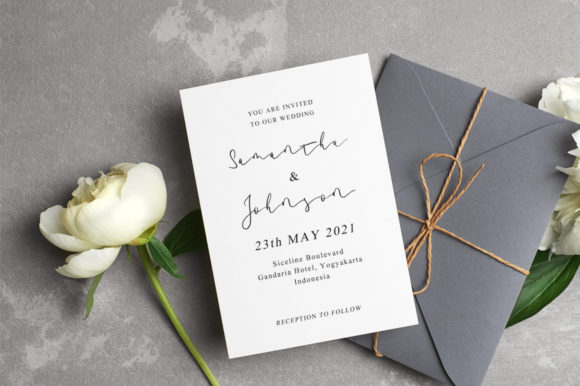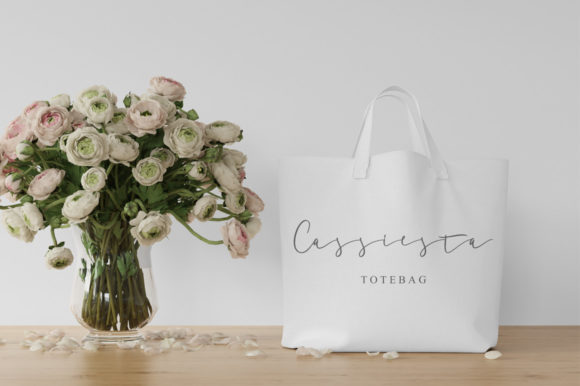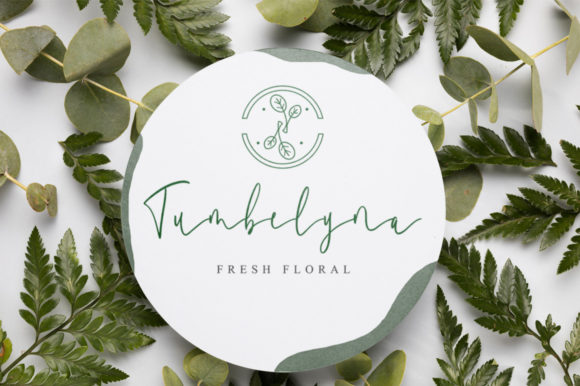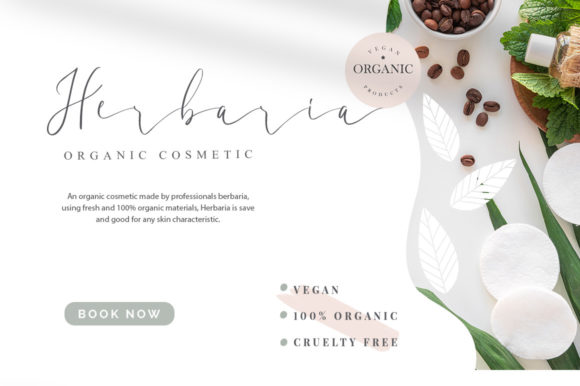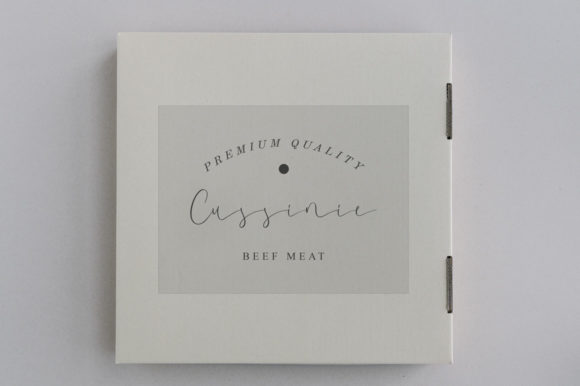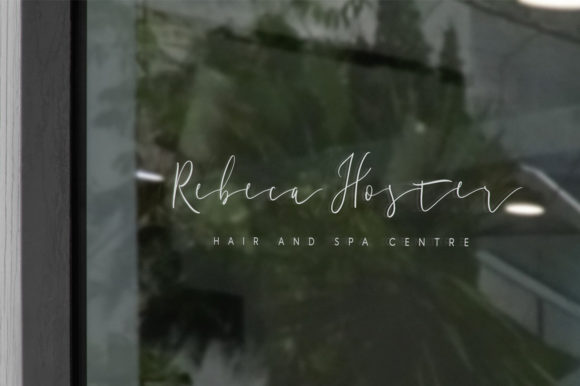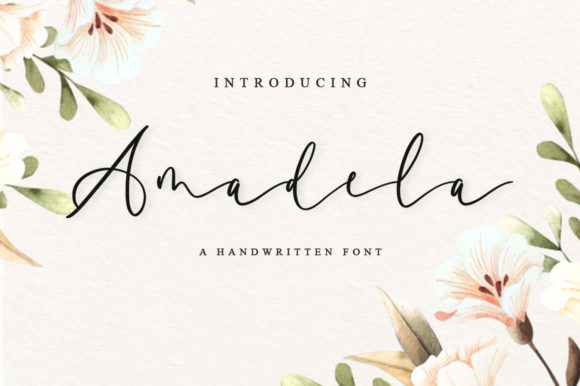
Introducing Amadela Font: Elevate Your Designs with Elegance and Sophistication
In the world of typography, few fonts manage to capture the essence of luxury and romance as effectively as Amadela. This exquisite script font is designed to add a touch of elegance and sophistication to any design project, making it a perfect choice for crafters, designers, and anyone looking to create visually stunning works. With its flowing lines, delicate curves, and romantic flair, Amadela is poised to become your go-to font for projects that demand a high level of refinement.
The Beauty of Amadela
Amadela’s design is characterized by its fluid strokes and graceful connections, which give it a unique, hand-crafted feel. This script font is not just about aesthetics; it’s also highly functional. Whether you’re working on a branding project, a wedding invitation, a packaging design, or a digital platform, Amadela can help you achieve a cohesive and luxurious look that resonates with your audience.
Example of Amadela Font in use
One of the standout features of Amadela is its PUA (Private Use Area) encoding. This means that the font includes a range of glyphs and ligatures that can be easily accessed and used in your designs. PUA encoding allows for a broader creative palette, enabling you to experiment with different stylistic variations and nuances without the need for complex workarounds or third-party software.
Benefits of PUA Encoding:
- Ease of Use: Access a wide range of glyphs and ligatures directly from your design software.
- Creative Freedom: Experiment with various typographic styles and combinations to find the perfect look for your project.
- Compatibility: Works seamlessly with popular design software, ensuring a smooth workflow.
Applications of Amadela Font
Amadela’s versatility makes it suitable for a wide range of design projects. Here are a few ideas to get you started:
- Branding and Logotypes: Create a memorable brand identity with a custom logotype that exudes luxury and sophistication.
- Wedding and Event Stationery: Add a touch of romance and elegance to wedding invitations, save-the-date cards, and other event materials.
- Packaging Design: Elevate your product packaging with a premium look that stands out on store shelves.
- Digital Platforms: Enhance your website, social media graphics, or digital advertisements with a sophisticated typography that captures attention.
Tips for Using Amadela Effectively
To make the most of Amadela, consider the following tips:
- Pair with Complementary Fonts: Combine Amadela with clean, sans-serif fonts for a balanced and modern look.
- Experiment with Colors: While Amadela looks stunning in metallic colors, don’t be afraid to experiment with different hues and gradients.
- Pay Attention to Spacing: Ensure adequate spacing between lines and words to maintain readability and flow.
Amadela Font is more than just a script font; it’s a tool for designers and crafters to create stunning, luxury-grade designs. Its flowing lines, delicate curves, and romantic charm, combined with PUA encoding for easy access to glyphs and ligatures, make it an invaluable asset in your typography arsenal. Whether you’re aiming to create a brand identity, design event stationery, or craft digital content, Amadela is sure to elevate your projects to new heights of elegance and sophistication.
Discover the beauty of Amadela and let your designs shine with a touch of luxury and romance.